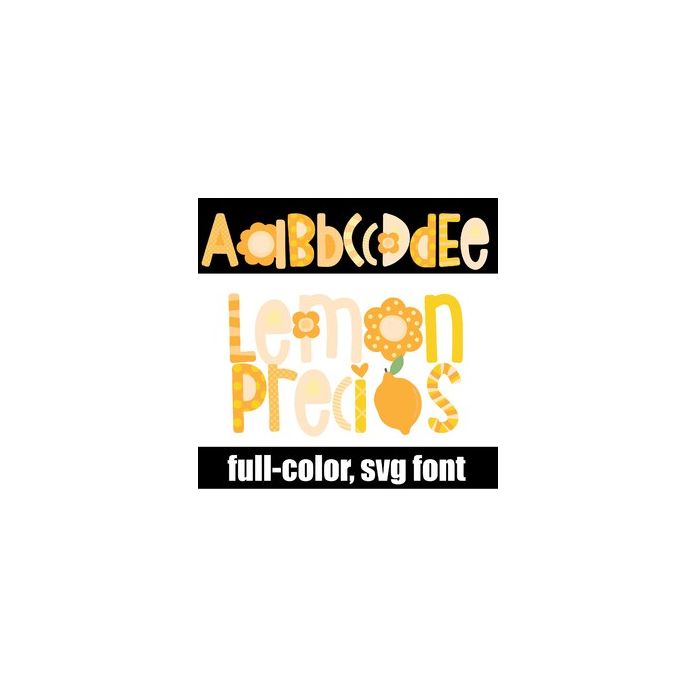
This full-color font features adorably designed lettering and patterns, flowers, and lemons. Access a lemon and lemon slice by typing the greater than and less than glyph.